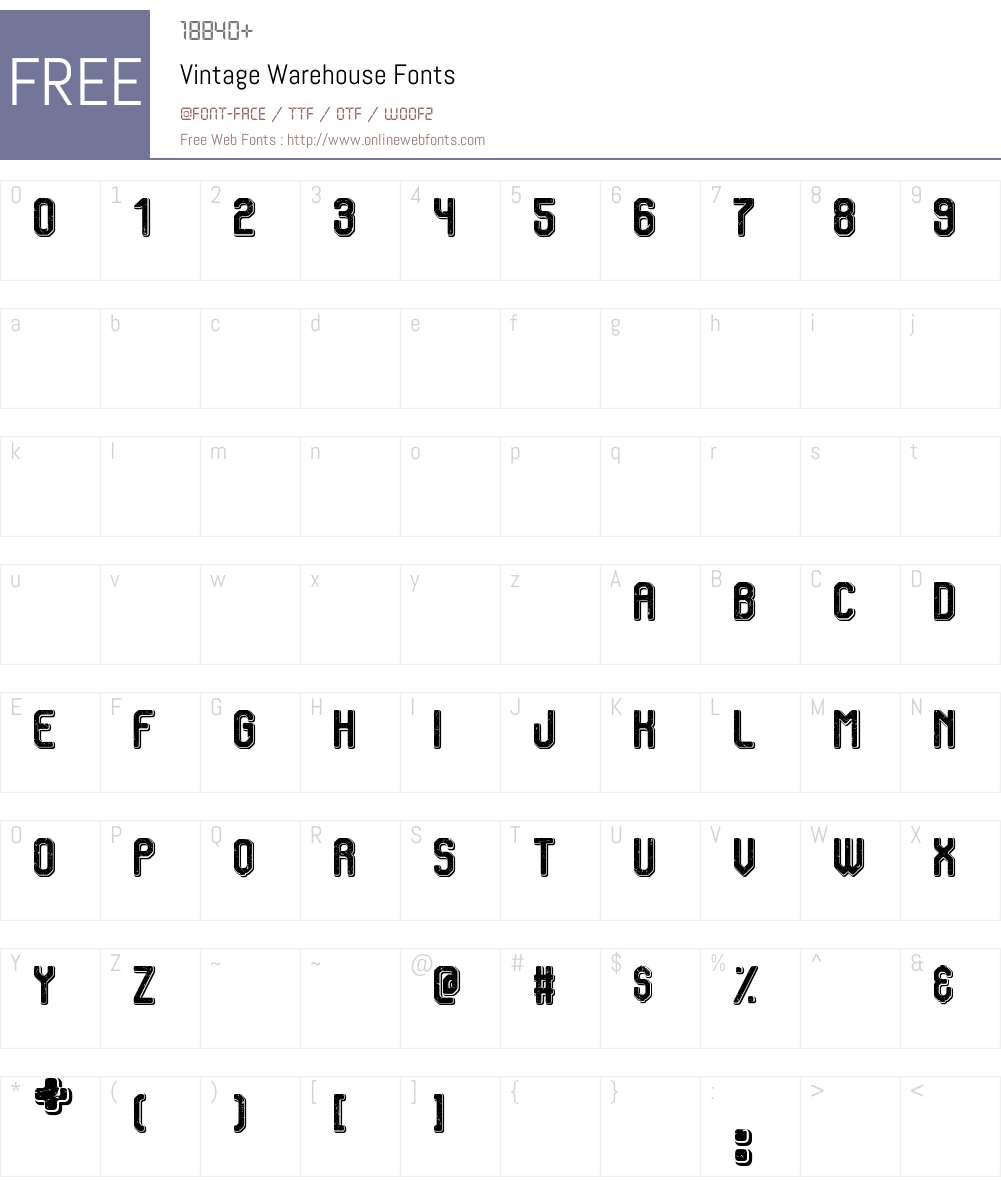
Vintage Warehouse Font . The free version offers all capitals and. The vintage warehouse font contains 236 beautifully designed characters. Download vintage warehouse font for free! A high quality retro font created by imagex and available as a free download and for personal use. The vintage warehouse font was designed by imagex. Vintage warehouse is the perfect font for all your fun designs. ️ customize your own preview on ffonts.net to make sure it`s the right one for your designs. 412,306 downloads (94 yesterday) 7 comments free for personal use. Get your very own free download of the vintage warehouse font, designed and created by imagex. Available in both ttf and otf typeface formats.
The free version offers all capitals and. Vintage warehouse is the perfect font for all your fun designs. 412,306 downloads (94 yesterday) 7 comments free for personal use. The vintage warehouse font contains 236 beautifully designed characters. Available in both ttf and otf typeface formats. Download vintage warehouse font for free! Get your very own free download of the vintage warehouse font, designed and created by imagex. The vintage warehouse font was designed by imagex. A high quality retro font created by imagex and available as a free download and for personal use. ️ customize your own preview on ffonts.net to make sure it`s the right one for your designs.
Vintage Warehouse Font The vintage warehouse font contains 236 beautifully designed characters. The free version offers all capitals and. ️ customize your own preview on ffonts.net to make sure it`s the right one for your designs. Download vintage warehouse font for free! 412,306 downloads (94 yesterday) 7 comments free for personal use. A high quality retro font created by imagex and available as a free download and for personal use. Available in both ttf and otf typeface formats. The vintage warehouse font contains 236 beautifully designed characters. Vintage warehouse is the perfect font for all your fun designs. Get your very own free download of the vintage warehouse font, designed and created by imagex. The vintage warehouse font was designed by imagex.
Vintage Warehouse Font Download Vintage Warehouse Font The free version offers all capitals and. ️ customize your own preview on ffonts.net to make sure it`s the right one for your designs. The vintage warehouse font contains 236 beautifully designed characters. Vintage warehouse is the perfect font for all your fun designs. Available in both ttf and otf typeface formats. Get your very own free download of the. Vintage Warehouse Font.
Vintage Warehouse Font Vectordad Vintage Warehouse Font Available in both ttf and otf typeface formats. ️ customize your own preview on ffonts.net to make sure it`s the right one for your designs. The vintage warehouse font contains 236 beautifully designed characters. The free version offers all capitals and. Vintage warehouse is the perfect font for all your fun designs. The vintage warehouse font was designed by imagex.. Vintage Warehouse Font.
Vintage Warehouse Font Download Free for Desktop & font Vintage Warehouse Font Vintage warehouse is the perfect font for all your fun designs. The free version offers all capitals and. The vintage warehouse font contains 236 beautifully designed characters. A high quality retro font created by imagex and available as a free download and for personal use. The vintage warehouse font was designed by imagex. 412,306 downloads (94 yesterday) 7 comments free. Vintage Warehouse Font.
Vintage Warehouse Font free download Vintage Warehouse Font 412,306 downloads (94 yesterday) 7 comments free for personal use. Download vintage warehouse font for free! Get your very own free download of the vintage warehouse font, designed and created by imagex. Vintage warehouse is the perfect font for all your fun designs. The free version offers all capitals and. A high quality retro font created by imagex and available. Vintage Warehouse Font.
Warehouse. Display Fonts. 14.00 Cool fonts, Script fonts, Handmade font Vintage Warehouse Font Available in both ttf and otf typeface formats. A high quality retro font created by imagex and available as a free download and for personal use. ️ customize your own preview on ffonts.net to make sure it`s the right one for your designs. Get your very own free download of the vintage warehouse font, designed and created by imagex. The. Vintage Warehouse Font.